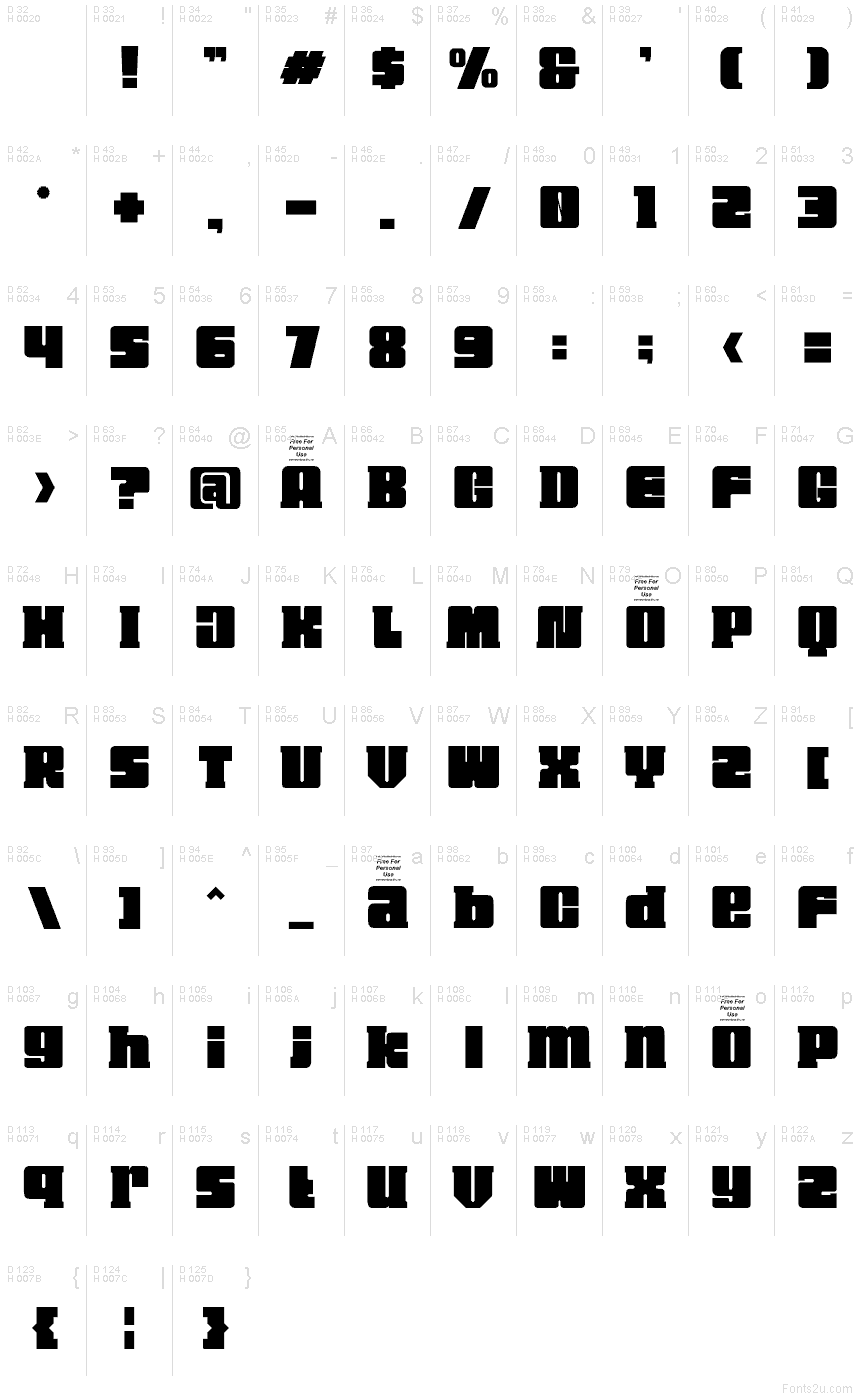
Raymond Koberto
Raymond Koberto font by Ermedia Studio is a free retro display font with a thick, blocky build and cheeky carved-in curves that feel cut from glossy vinyl. Its defining rhythm—tight spacing, tall heft, and squared shoulders—creates a punchy wall of ink that reads loud without shouting. The result is a throwback tone that’s bold, legible, and a little mischievous.
Using Raymond Koberto, headlines snap to attention and stay there—great for posters, album art, cocktail menus, arcade titles, event flyers, and statement packaging. This free font thrives large, where its chunky silhouettes and sculpted counters can breathe. Pair with a clean geometric sans for body copy, and let Raymond handle the spotlight.